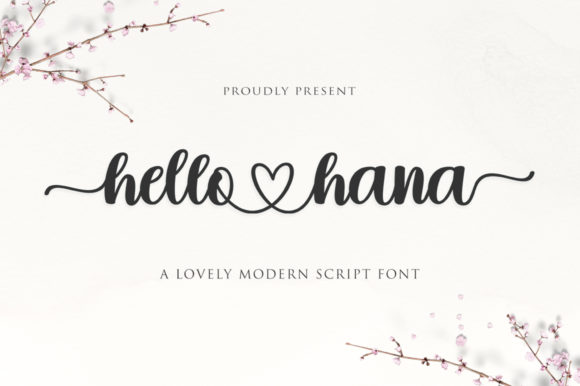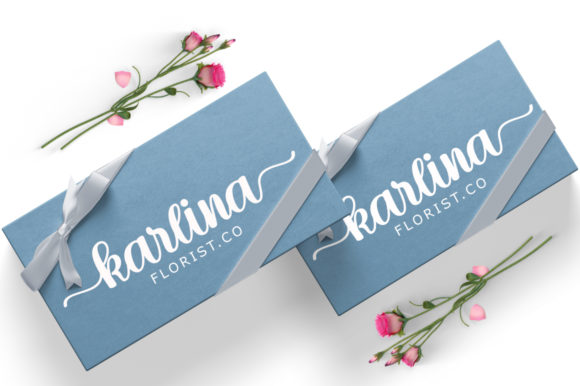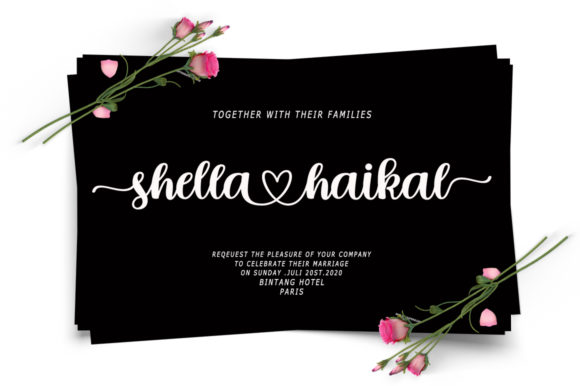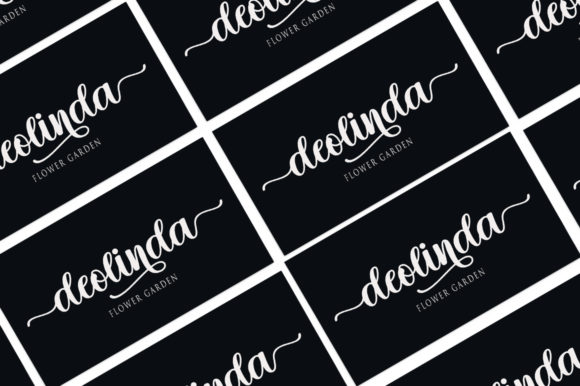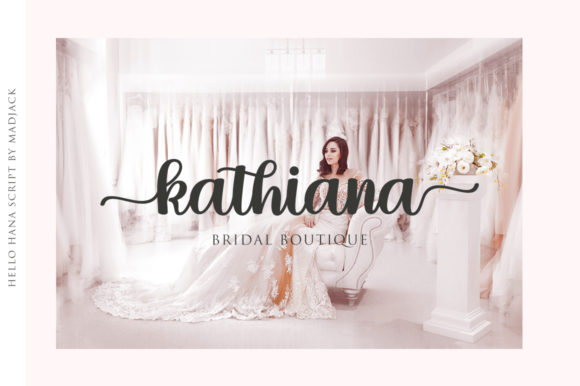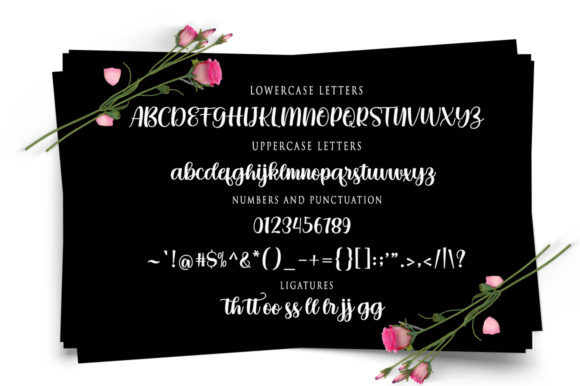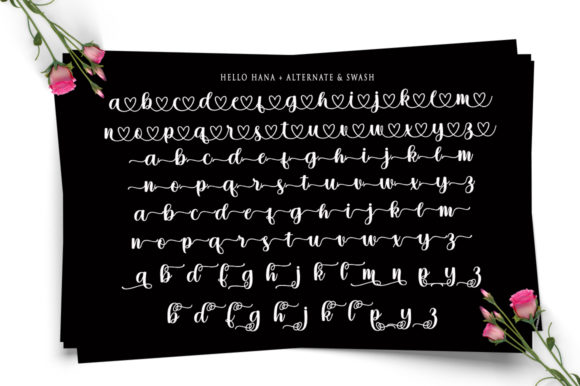
Hello Hana Font
About Hello Hana Font
Hello Hana, a font that exudes both charm and elegance, is a handwritten masterpiece that effortlessly adds a touch of sophistication to any design. Its versatile and captivating style makes it a perfect choice for a plethora of creative projects, ranging from wedding invitations to thank you cards, and from quotes to logos and business cards.
The moment you set your eyes on Hello Hana, you’ll be captivated by its timeless beauty. Each stroke and curve is meticulously crafted to convey an air of grace and refinement. Its flowing lines and delicate details create a sense of effortless elegance that resonates with a wide range of audiences.
Hello Hana’s ability to seamlessly blend into various design contexts is truly remarkable. Whether you’re crafting the perfect wedding invitation that deserves a touch of romance, designing a memorable logo that reflects the essence of your brand, or creating greeting cards that spread warmth and joy, Hello Hana is up to the task.
The PUA encoding of Hello Hana is a hidden treasure that unlocks a world of possibilities. With easy access to an array of glyphs and swashes, you have the power to infuse your designs with a level of personalization and uniqueness that leaves a lasting impression. This feature empowers you to tailor Hello Hana to suit your specific vision, ensuring that your designs stand out in a sea of ordinary.
Hello Hana’s versatility doesn’t just end at its design; it extends to the emotions it evokes. Its handwritten touch carries an authenticity and intimacy that resonates deeply with anyone who encounters it. Whether you’re conveying heartfelt sentiments on thank you cards or adding a personal touch to business branding, Hello Hana’s charm fosters a sense of connection.
Imagine Hello Hana gracing the delicate details of a wedding invitation, setting the stage for a romantic and memorable celebration. Envision it adorning a business logo, instantly imparting a sense of approachability and sophistication that draws customers in. Visualize it enhancing quotes and messages, adding a layer of elegance that captivates readers.
Every aspect of Hello Hana is a testament to its elegance, from the varying baseline that adds a touch of movement to the smooth lines that guide the eye with grace. This font’s versatility lies in its ability to adapt to different moods and atmospheres, ensuring that it’s equally at home in both formal and casual settings.
Hello Hana is more than a font; it’s a conduit for your creativity, enabling you to create designs that make a lasting impact. Its charming and elegant nature enhances every project it graces, turning ordinary visuals into extraordinary works of art. Let Hello Hana be your trusted companion as you embark on a journey to elevate your designs to new heights.
So, fall in love with Hello Hana and discover the magic it brings to your creative projects. Whether you’re designing wedding materials, business branding, quotes, or any other visual content, Hello Hana’s charming and elegant presence will leave a lasting imprint. Let it be the elegant brushstroke that adds depth and sophistication to your artistic endeavors.